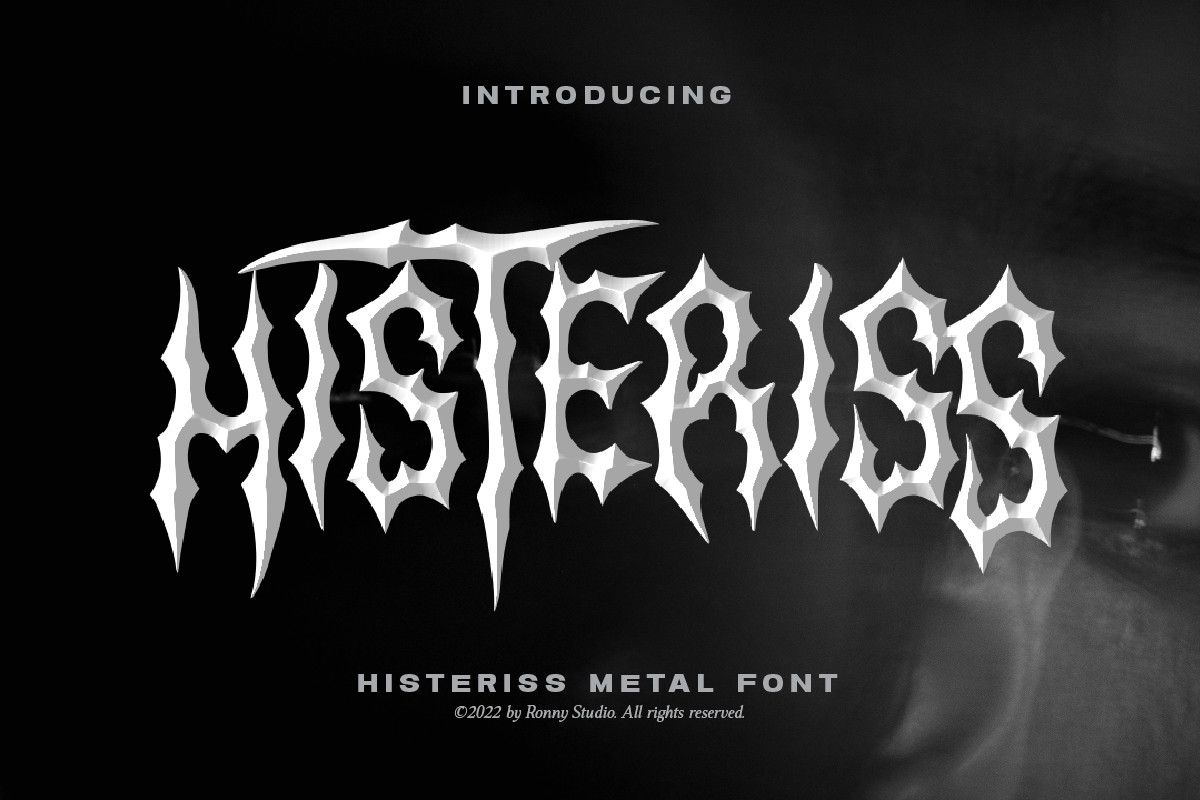
Histeriss Heavy Metal Font Free Download
Histeriss Heavy Metal Font Free Download is an intense and electrifying typeface built for loud designs and hardcore aesthetics. With its razor-sharp edges, aggressive strokes, and rebellious vibe, Histeriss is perfect for metal band logos, concert posters, album covers, extreme sports branding, and anything that needs raw, unfiltered power.
Channeling the chaos and energy of heavy metal culture, Histeriss Heavy Metal Font Free Download delivers a brutal and unforgettable look. Its jagged style and fierce personality make it stand out in both digital and print formats, demanding attention and amplifying any message.